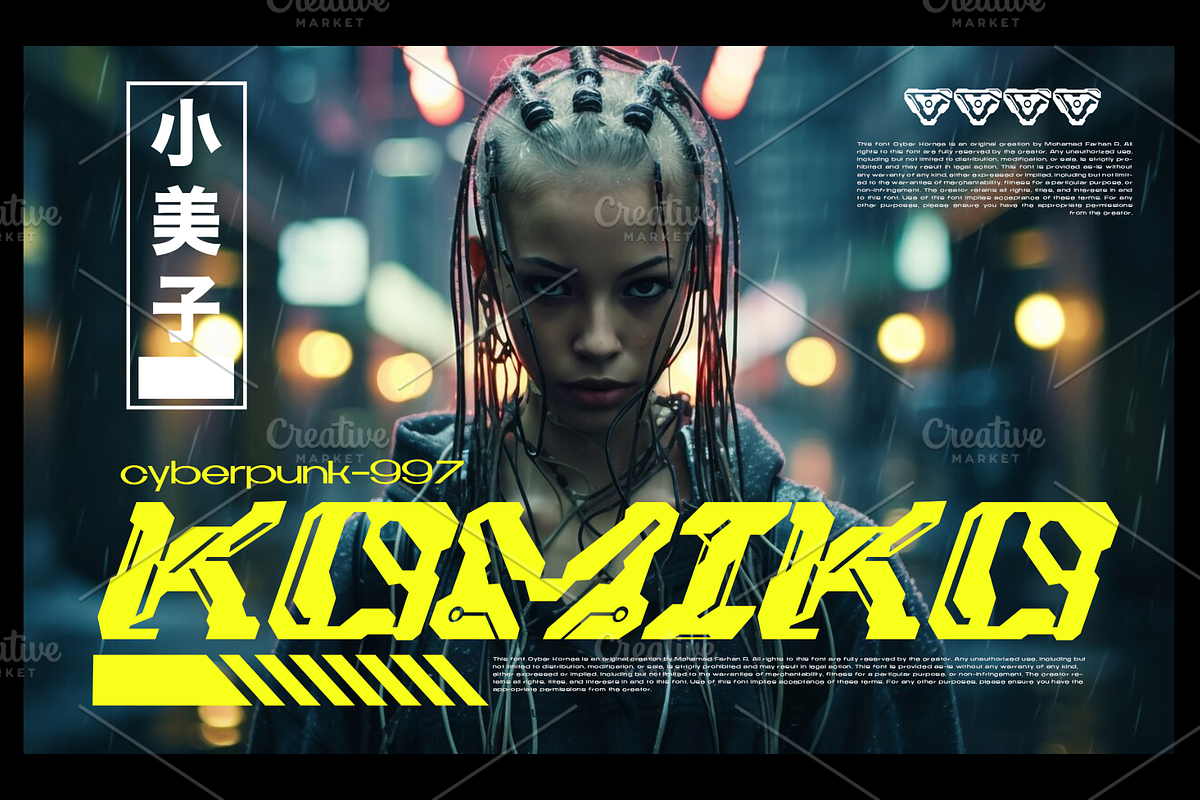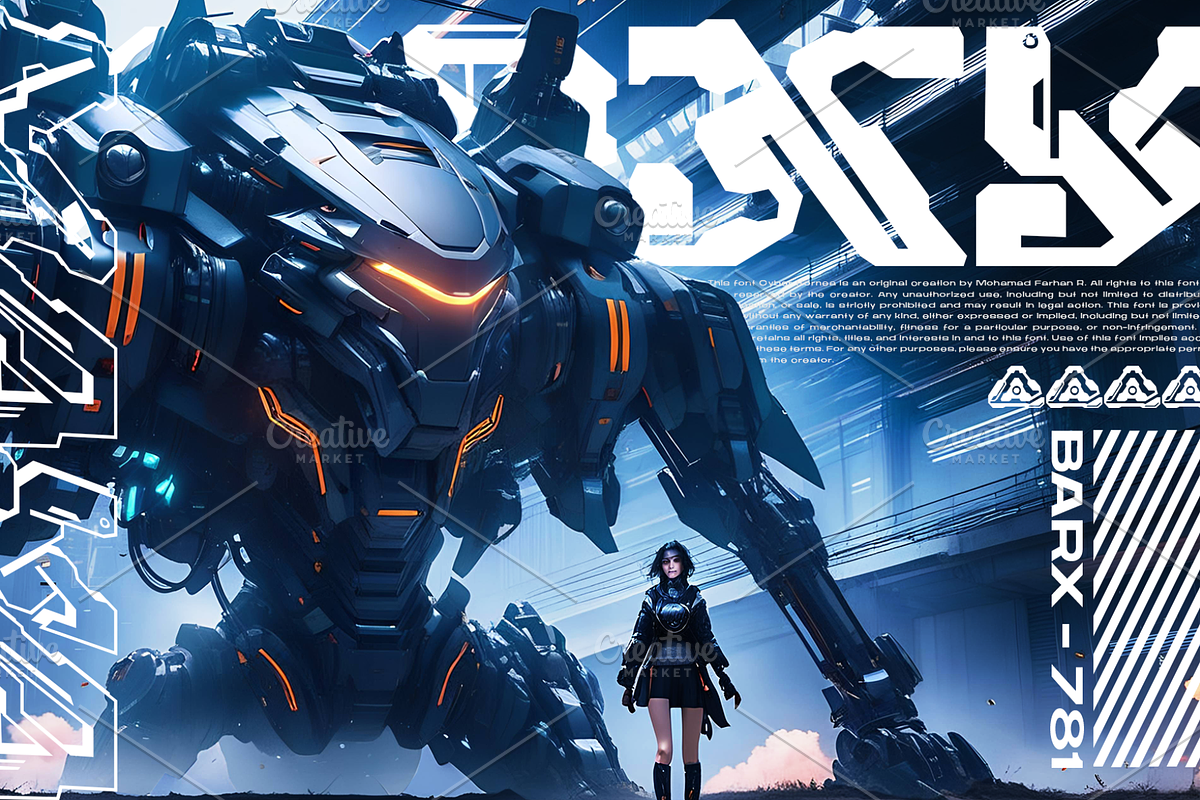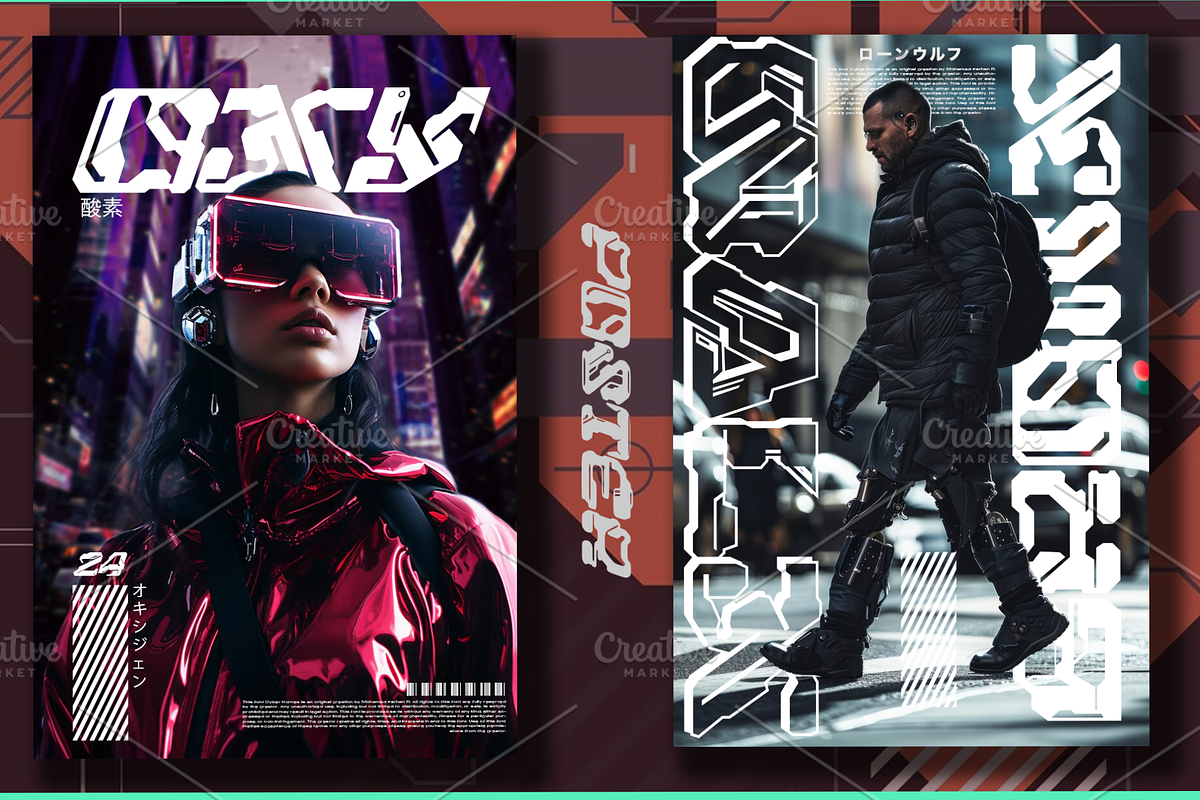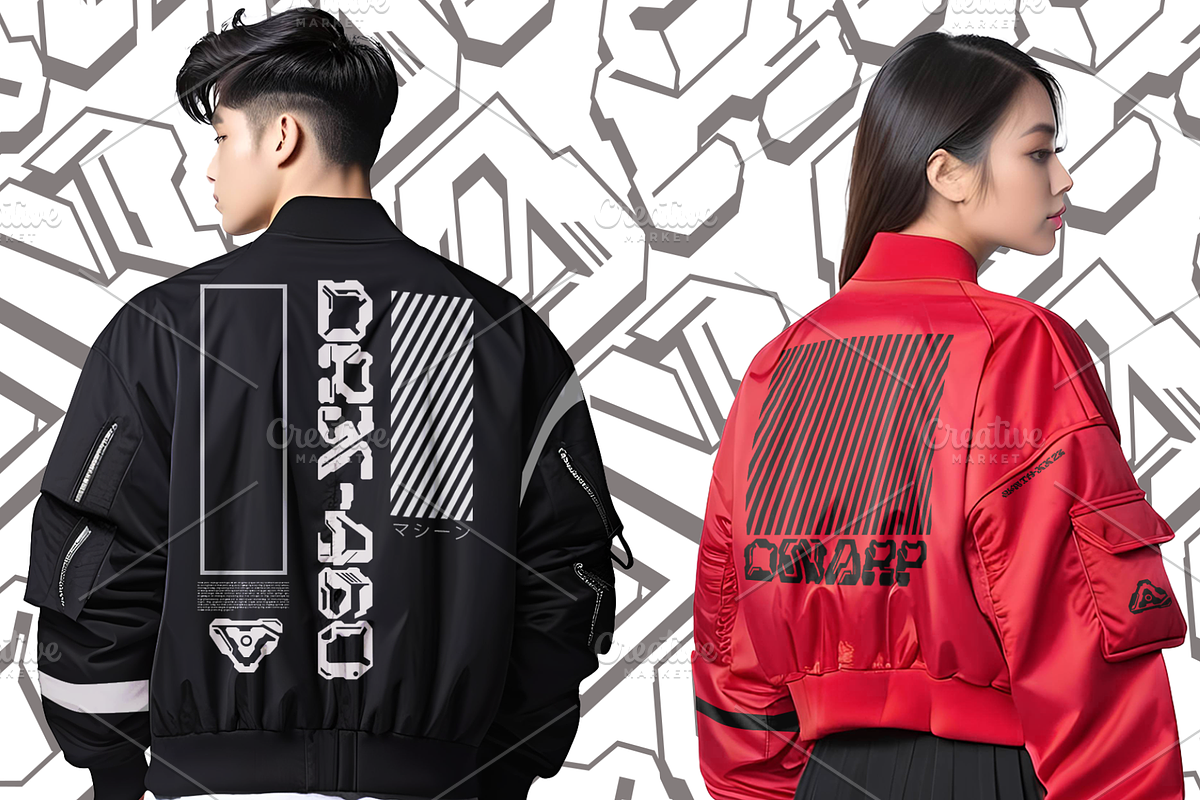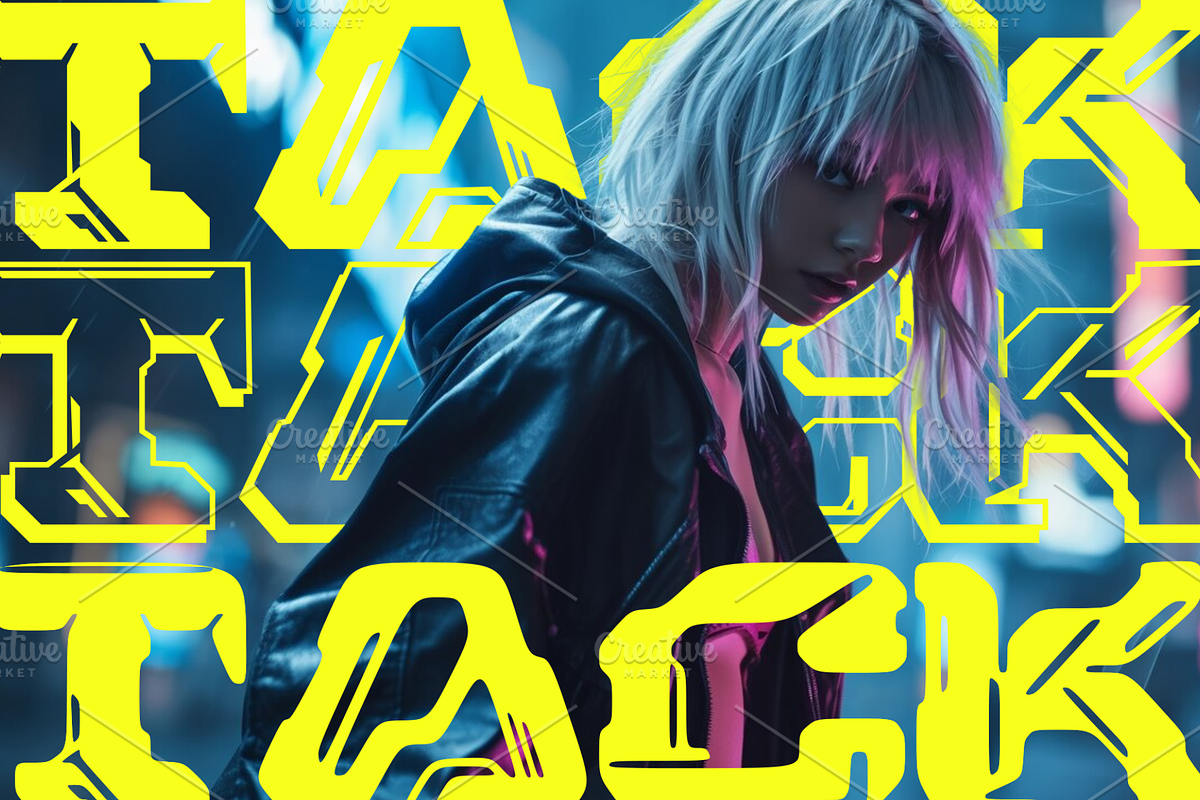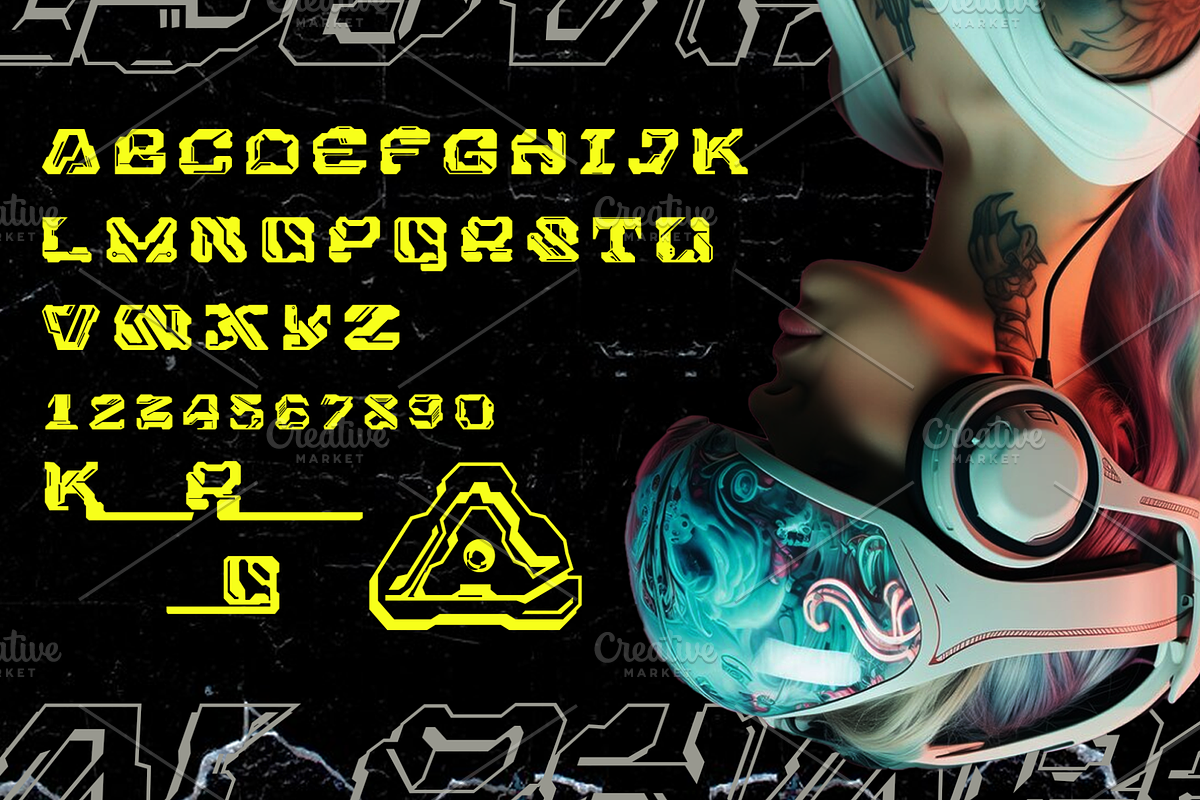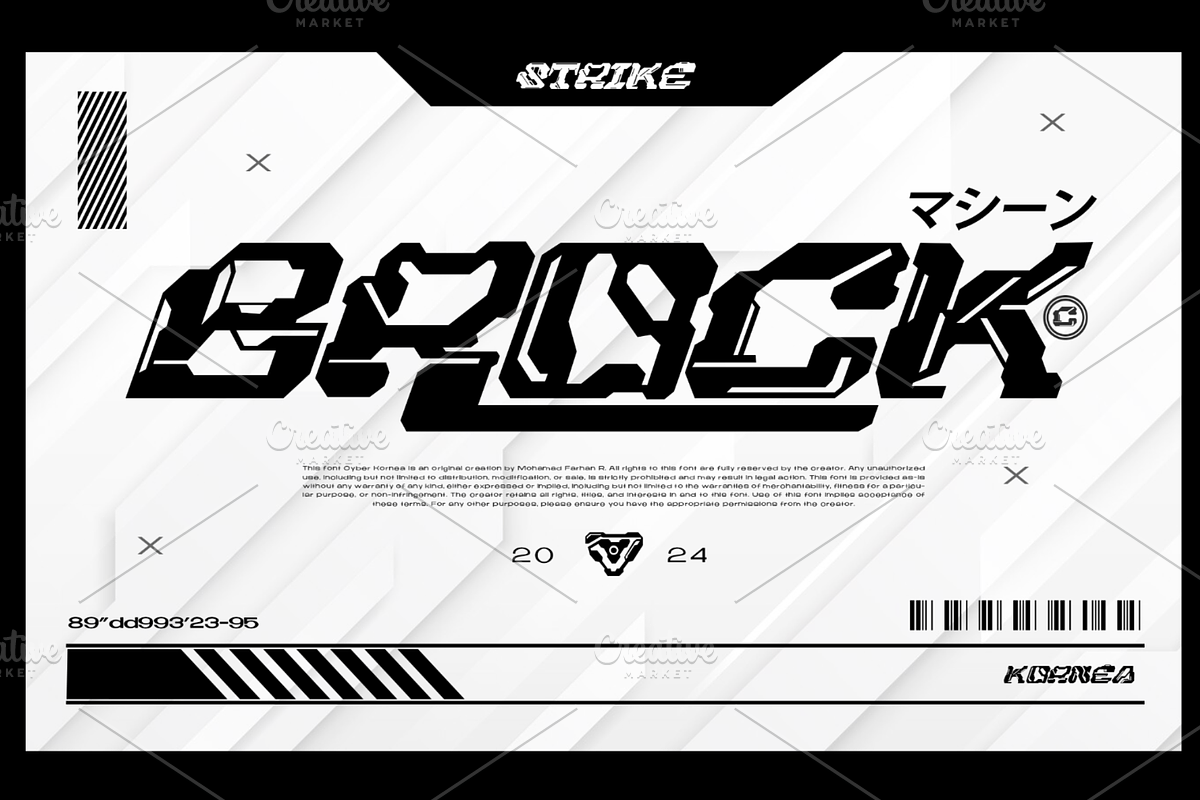
Cyber Kornea | Cyberpunk Mecha Font
Infuse your creative projects with edge and ingenuity using the Cyber Kornea font. As a strikingly bold techno macha display font, Cyber Kornea was crafted to command attention and exert maximum impact. Boasting over 300 accessible glyphs, this multilingual typeface incorporates variations such as regular, smooth, oblique, and shadow, providing versatility for any assignment. Cyber Kornea shines in the arenas of branding, magazine layouts, impactful typography, poster design, arresting thumbnails, and trendy streetwear aesthetics. Each letter radiates a distinctive style, lending futuristic flair to any project, ensuring that your work truly stands out. Experience the transformative power of Cyber Kornea.